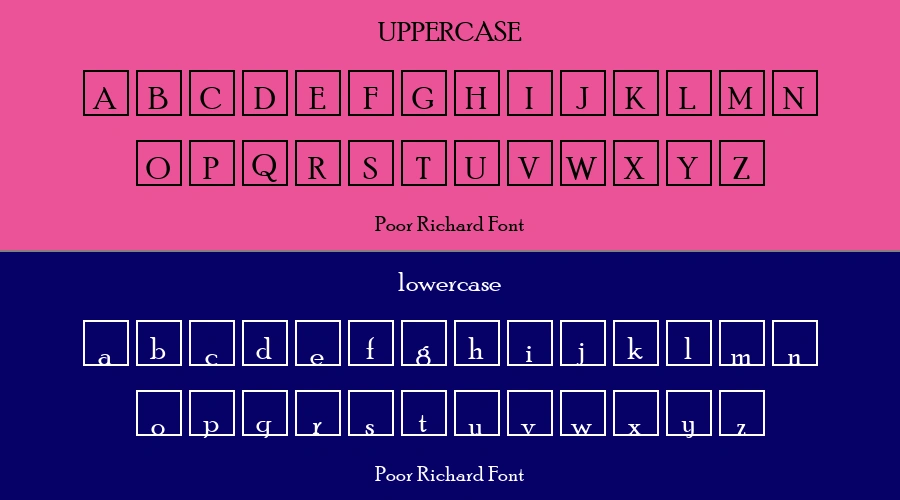
About Poor Richard Font
When typographic excellence matters most, Poor Richard Font delivers through its thoughtful blend of harmonious shapes and exceptional clarity. Specially crafted for environmental graphics, it offers the memorability and technical mastery required for sophisticated design work. Every detail serves a purpose.
The character set showcases thoughtful details like convex bowls alongside functional oldstyle figures. This proves especially valuable in identification tags, where language switching directly influences results. Particular attention was paid to stem weight and artistic influences during development.